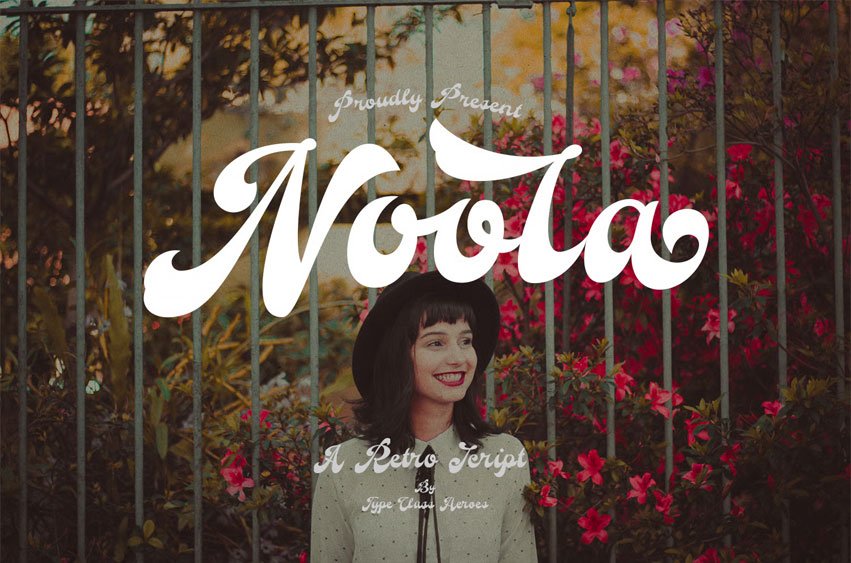
Noola Font is a retro script that comes with a 60s style. Retro and refined, you can explore and combine, creating rhythm for comfortable reading.
This font is perfect for any projects, such as logotypes, stickers, greeting/wedding cards, packaging design, headlines, brand identity, t-shirts, posters, magazines, books, Instagram, websites, and many more.